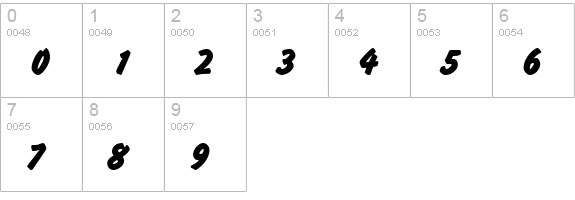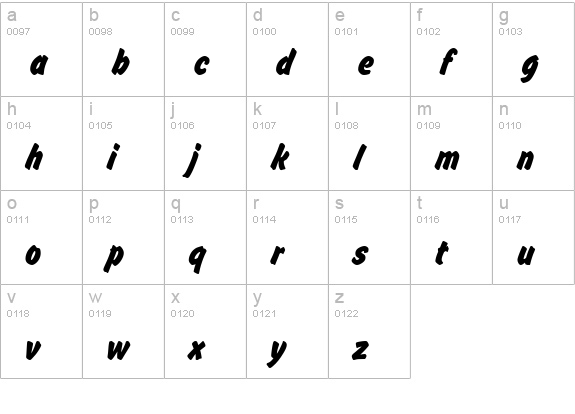
OkayD Font Details
Introducing OkayD font, a versatile and modern typeface that is perfect for a wide range of design projects. With its clean lines and stylish appearance, OkayD font brings a contemporary look to any text or graphic layout. This font is ideal for branding, advertising, web design, and more. What's even better is that OkayD font is completely free to download at FontsMarket.com. Yes, you read that right - you can enhance your creative projects with this stunning font at no cost at all. So why wait? Download OkayD font today and elevate your designs with its sleek and sophisticated style.